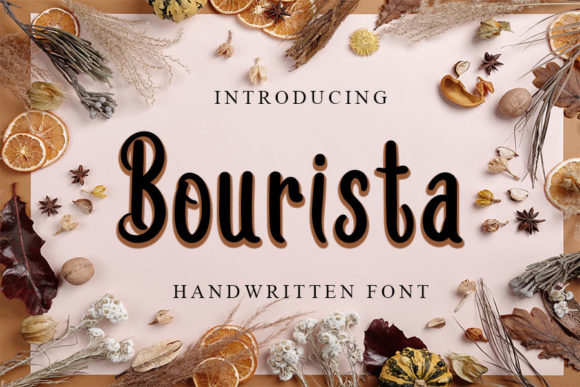
Bourista Font
Introducing Bourista Font, a captivating script typeface that dances across your digital canvas with grace and charm. Designed by the visionary minds at ONE DESIGN, Bourista isn't just a collection of letters; it's an experience, a journey into the realm of artistic expression.
With its bold strokes and sweeping curves, Bourista carries an air of elegance and sophistication that's perfect for headlines, logotypes, and any project seeking to make a lasting impact. Its strong and confident presence commands attention, while its dynamic character adds a touch of nostalgia, evoking memories of handwritten letters and timeless classics.
Bourista Font isn't merely a tool; it's a muse, a spark that ignites creativity and breathes life into your designs. Its versatility knows no bounds, adapting effortlessly to a myriad of styles and themes. Whether you're crafting a vintage-inspired poster, a modern brand logo, or an eye-catching social media post, Bourista seamlessly blends with your vision, like a chameleon changing hues to match its surroundings.
More than just a font, Bourista Font is a testament to the power of typography, a reminder that words, when adorned with the right attire, can transcend their literal meaning and become art. It's a font that speaks volumes, conveying emotions, setting moods, and telling stories through its unique visual language.
So, embark on a creative adventure with Bourista Font. Let your imagination run wild as you explore the endless possibilities it presents. Transform ordinary text into captivating headlines, breathe life into your logos, and create designs that resonate with your audience, leaving an indelible mark on their minds. With Bourista Font as your creative companion, the possibilities are limitless.